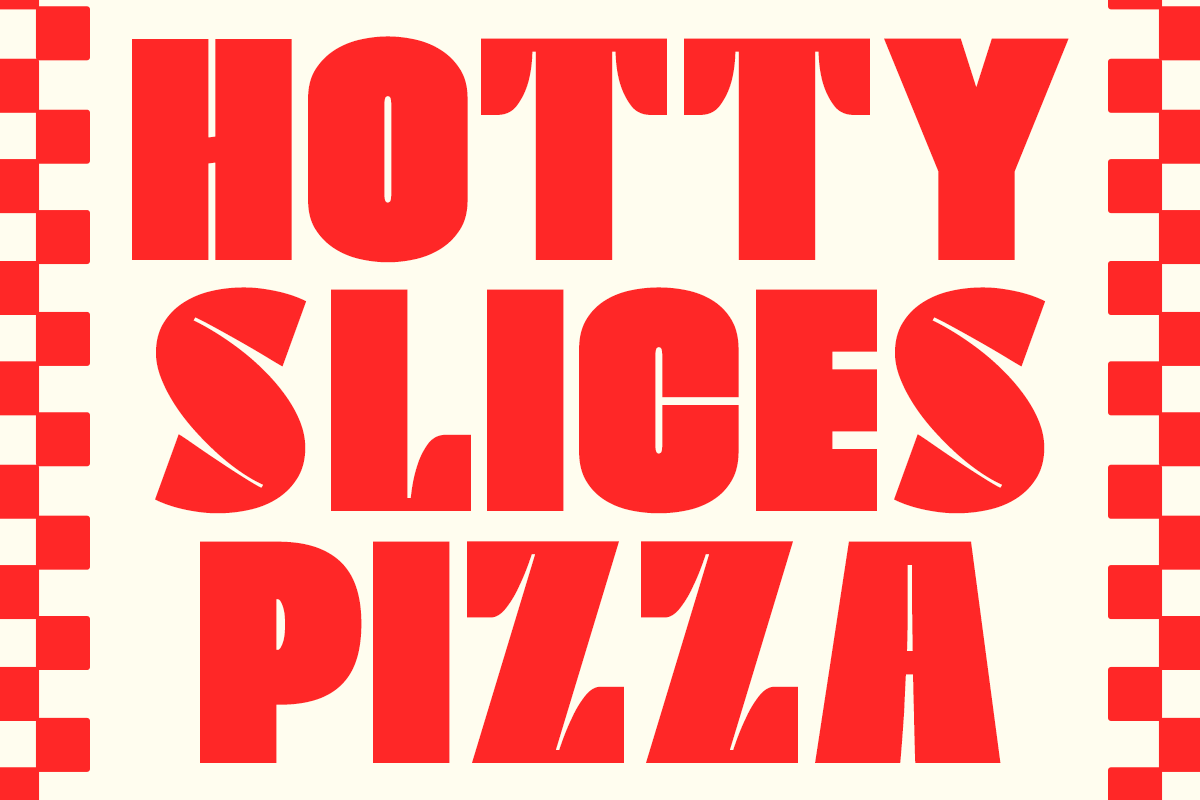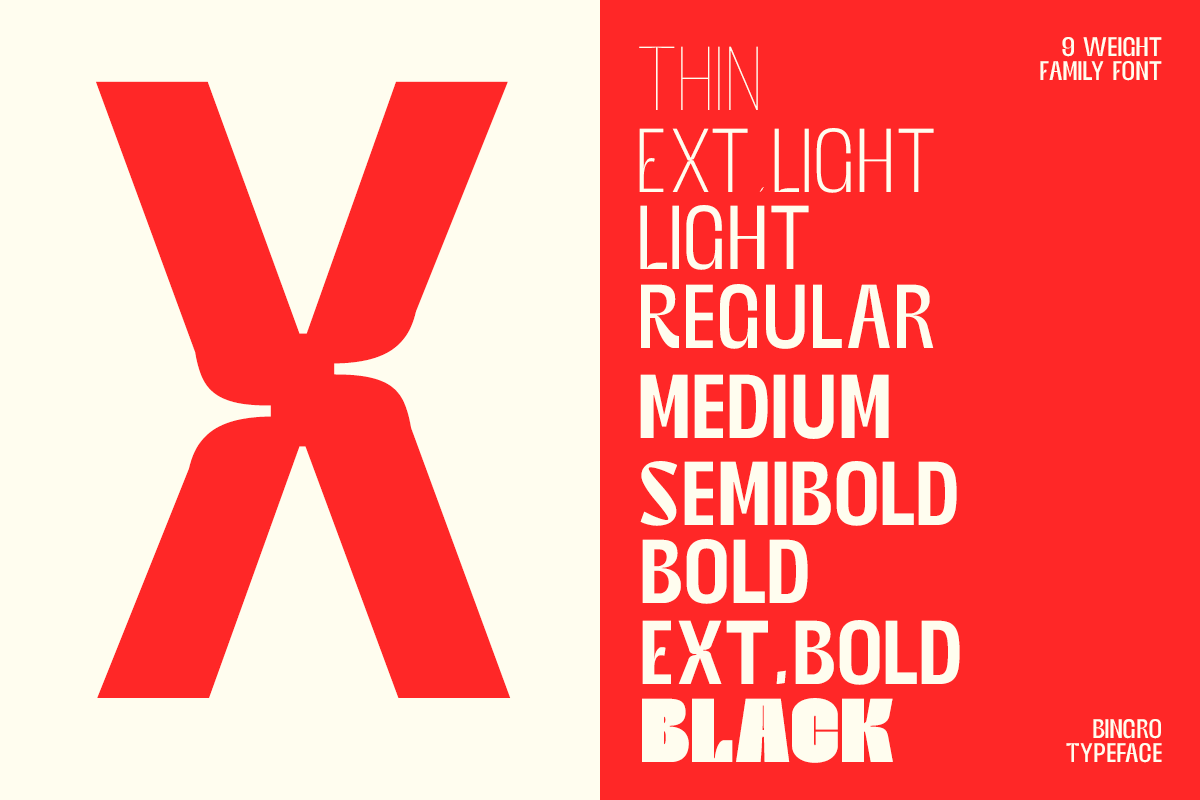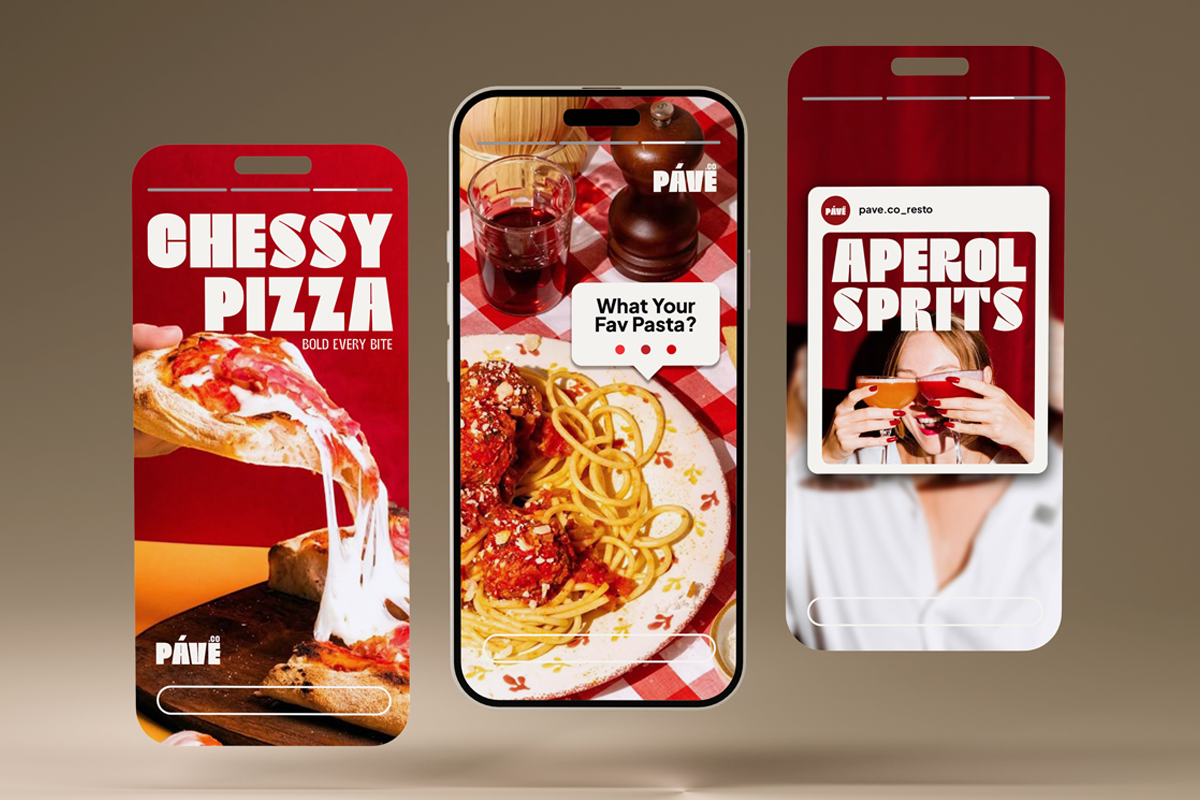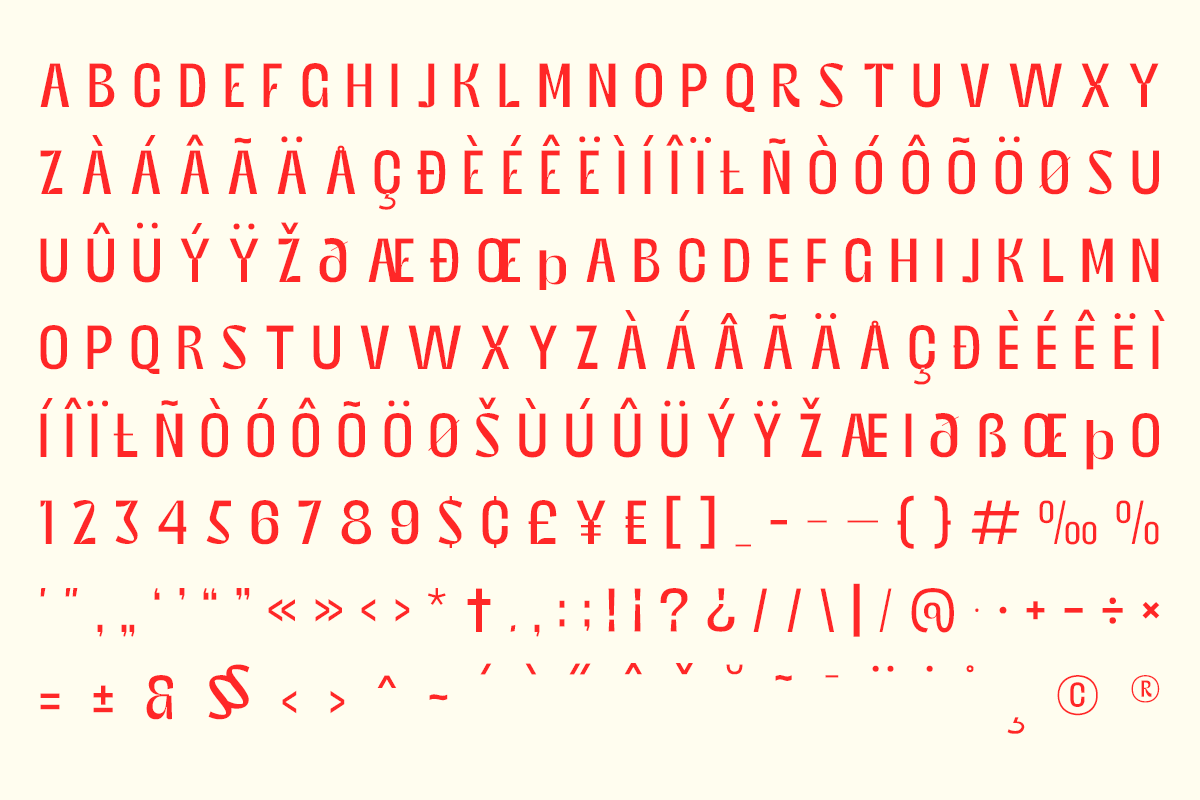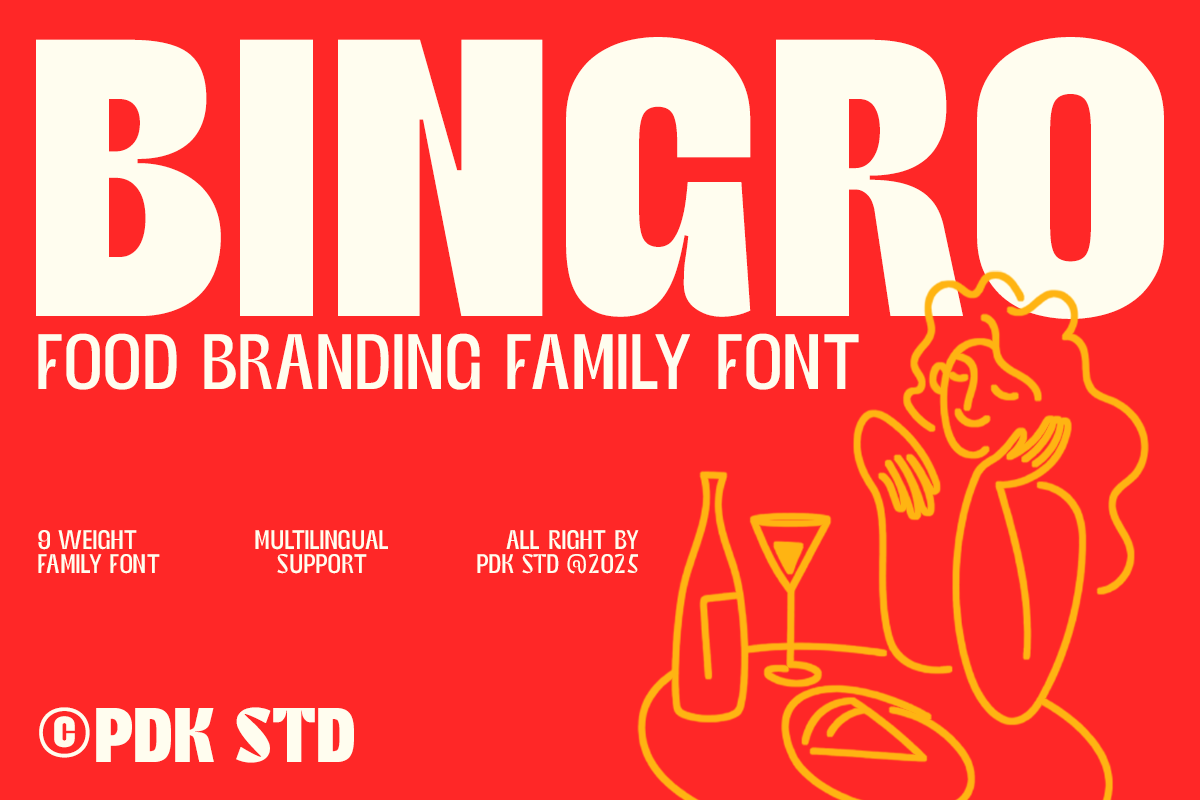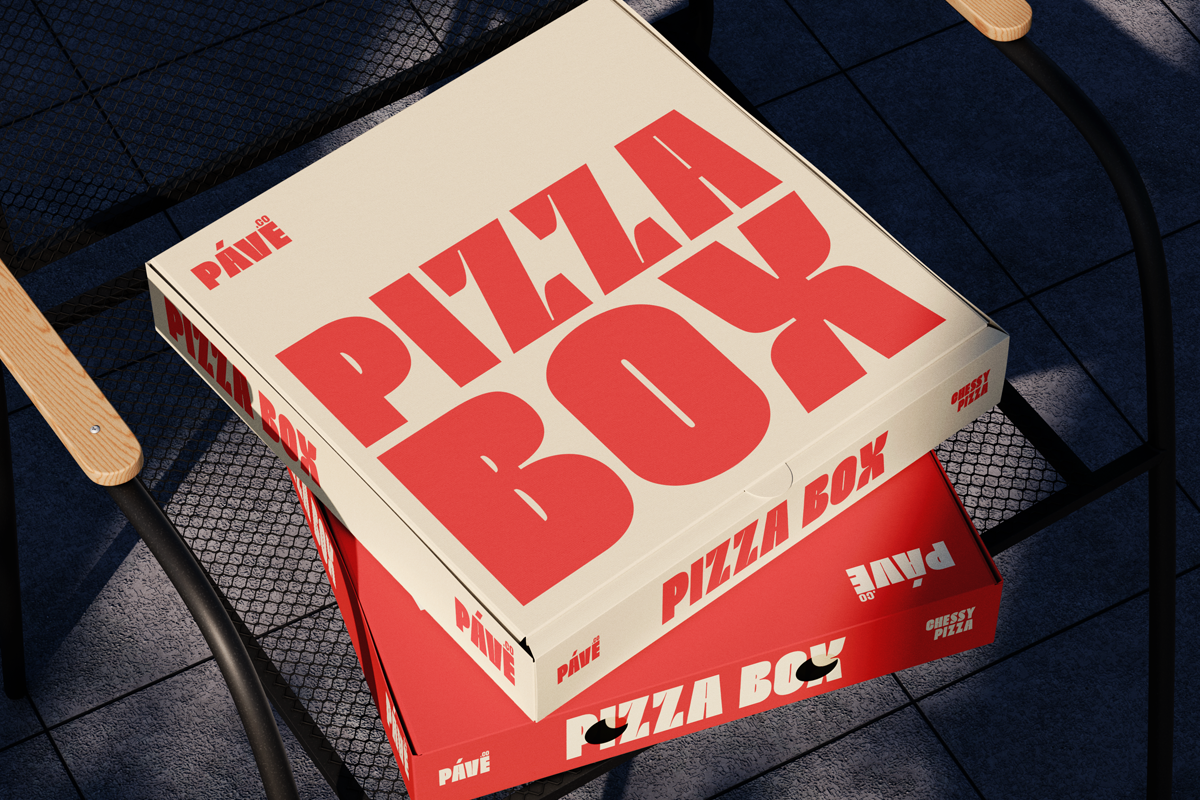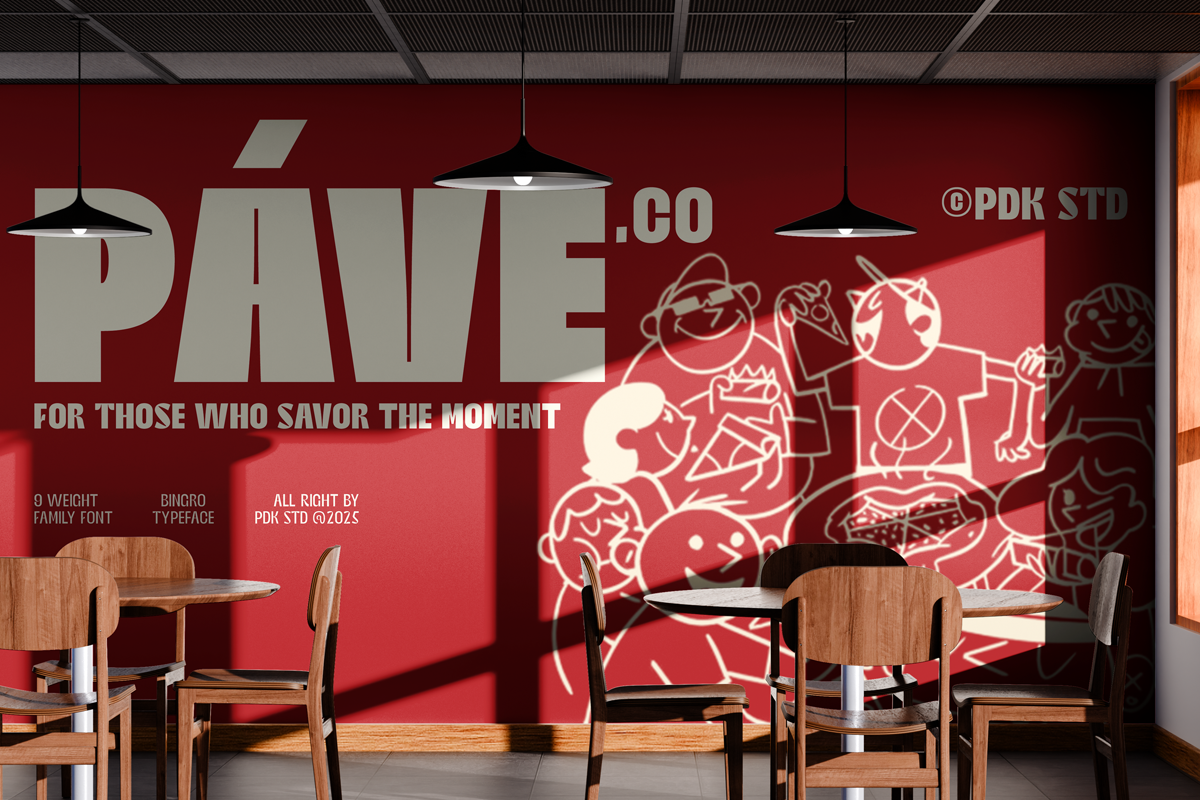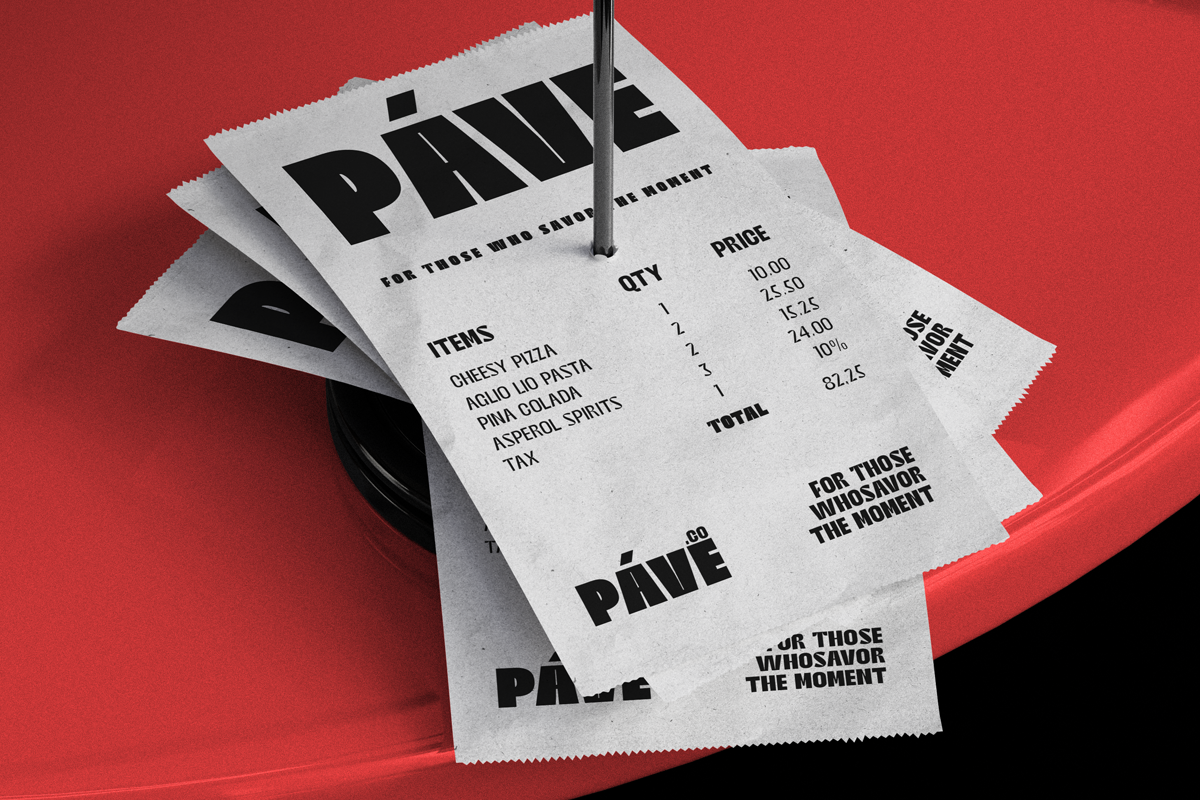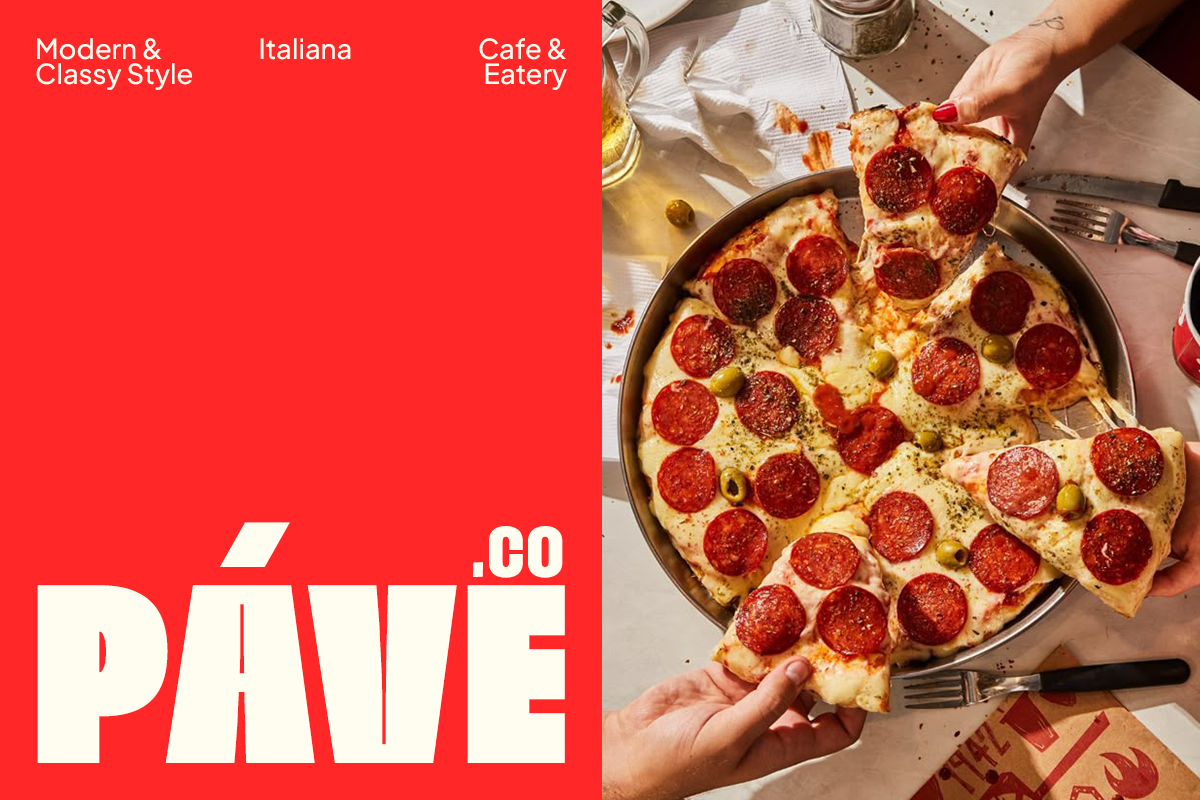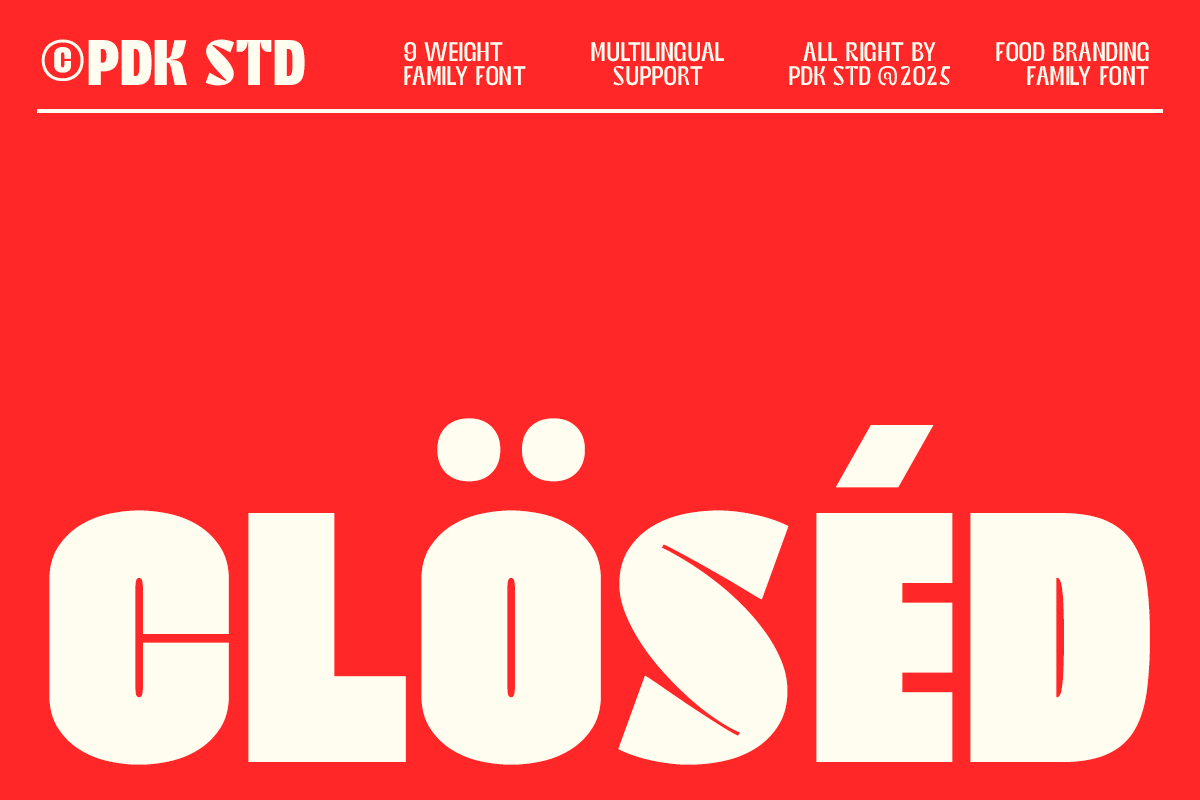
Bingro - Food Branding Family Font
Bingro is a bold and flavorful food branding family font designed to bring energy, warmth, and personality to your visual identity. Its chunky shapes, soft curves, and eye-catching forms create a fun and appetizing look—perfect for restaurants, cafés, fast-food brands, packaging, street food stalls, posters, and social media branding.
This family includes 9 expressive styles — Thin, Extra Light, Light, Regular, Medium, Semi Bold, Bold, Extra Bold, and Black, allowing you to build flexible typographic systems for menus, signage, storefronts, and promotional materials.
Bingro also comes with a Variable Font, giving you smooth, precise control over weight transitions for responsive design, digital interfaces, and modern workflows in Figma, Illustrator, Photoshop, and the web.
- 9 Styles Family: Thin, Extra Light, Light, Regular, Medium, Semi Bold, Bold, Extra Bold, and Black
- Full Character Set: Uppercase, lowercase, numbers, symbols, and punctuation
With its playful punch and strong visual presence, Bingro is the perfect choice for food-themed branding that needs to be bold, fun, and irresistibly inviting.